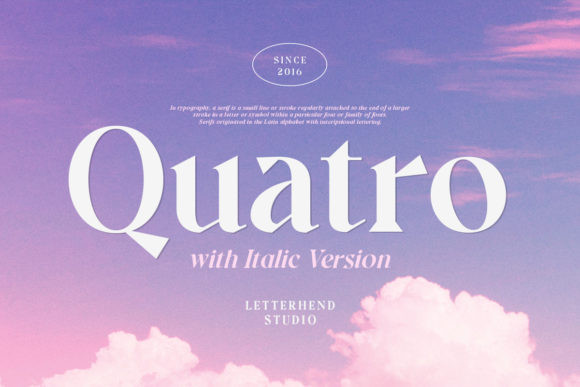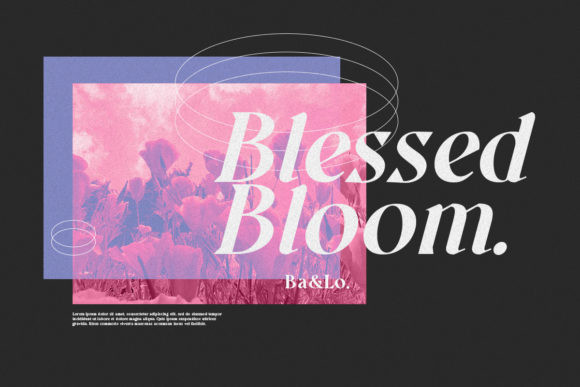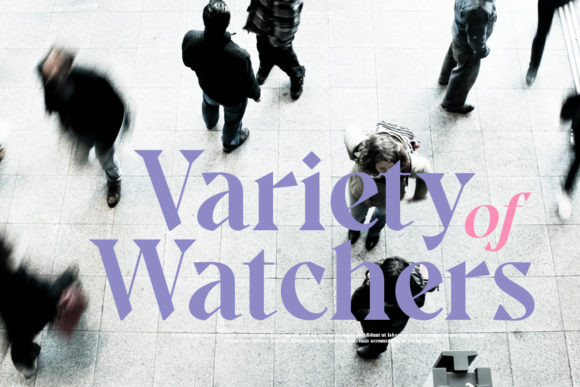
Quatro Font
Quatro is a bold and elegant serif font. It can easily be matched to an incredibly large set of projects, so add it to your creative ideas and notice how it makes them stand out!